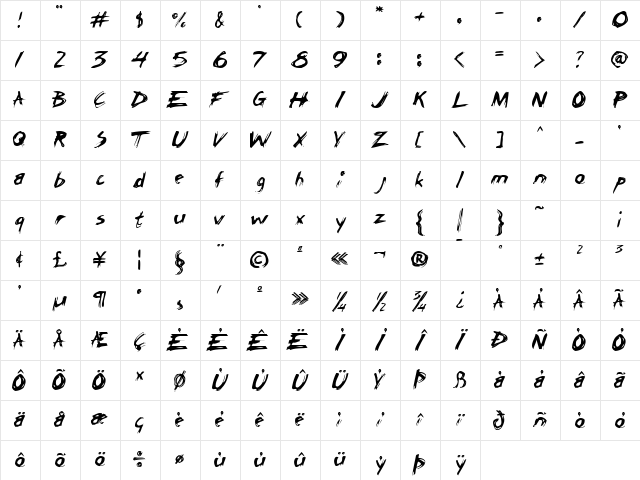
ChickenScratch AOE Regular Free Font
ChickenScratch AOE Regular
Foundry: Astigmatic (AOETI)
Designer: Brian J. Bonislawsky, Astigmatic
Design Context for ChickenScratch AOE
ChickenScratch AOE is a composed and adaptable typeface that performs quietly and consistently across a wide range of design contexts.